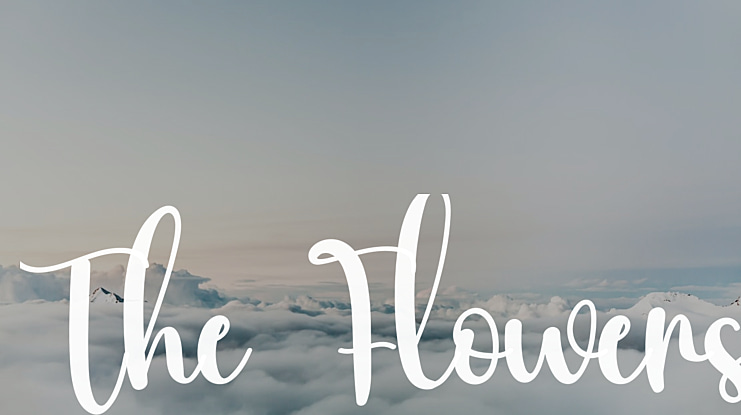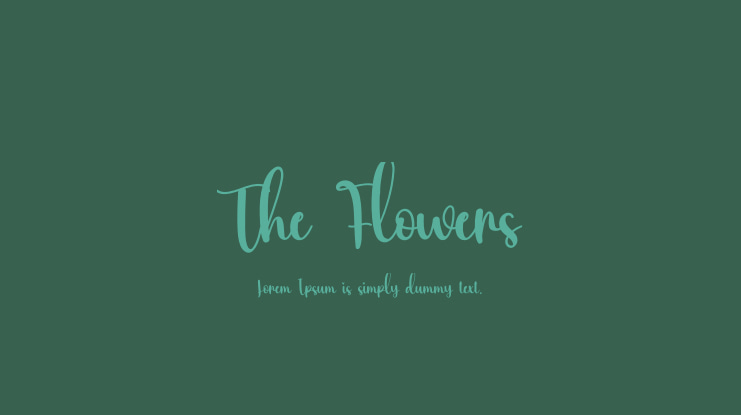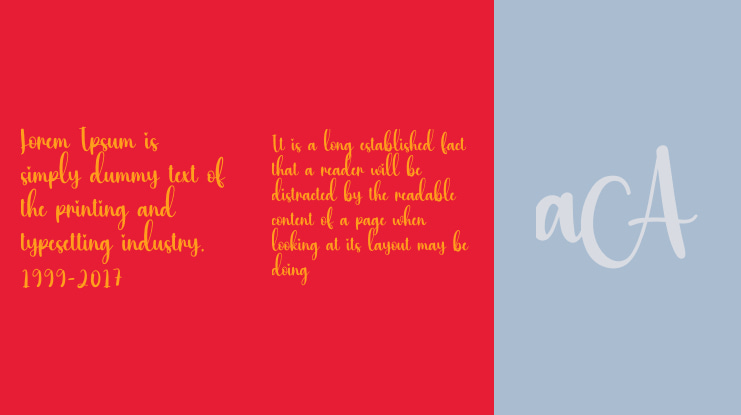
The Flowers Font
Introducing our special and creative products designed to provide an extraordinary experience. Our latest style letters are perfect for various uses such as wall displays, wedding invitations, social media post logos, advertisements, product packaging, designs, labels, photography, watermarks, invitations, stationery, and any project that requires tasteful handwriting.
The Flowers font preview